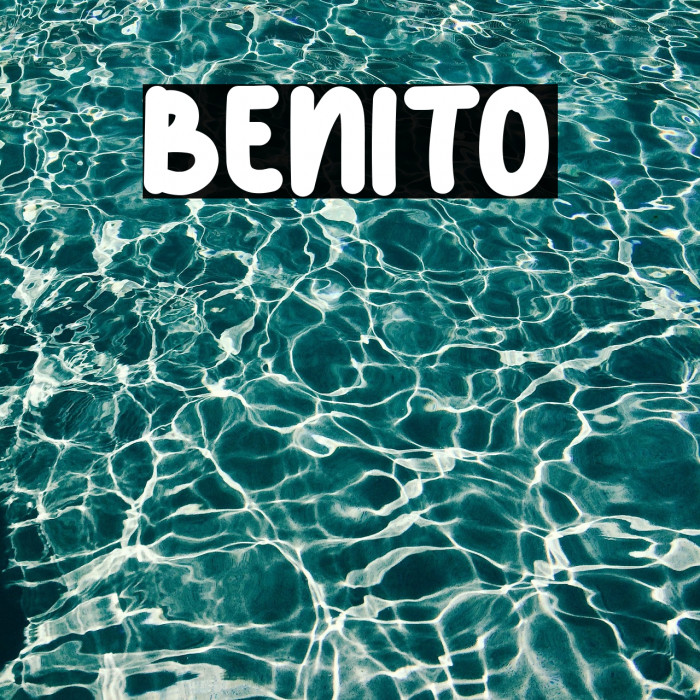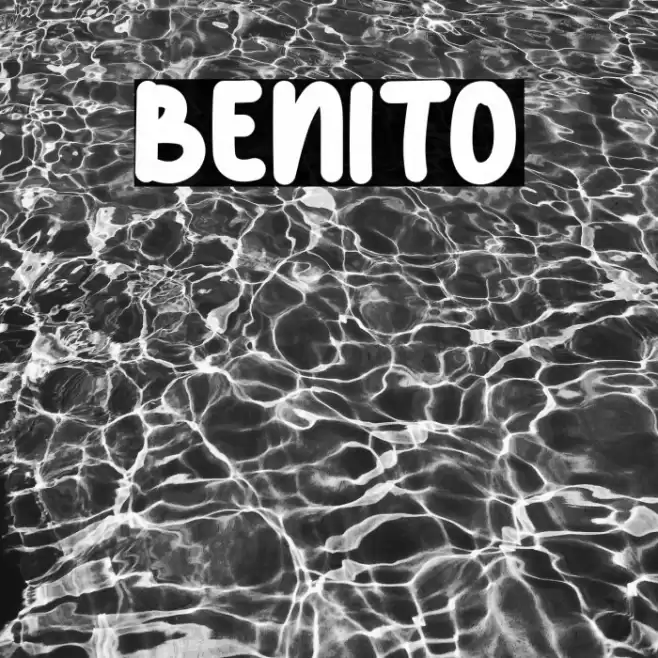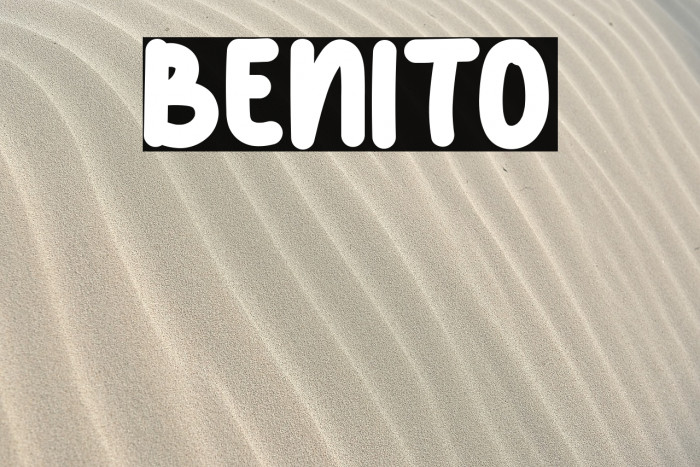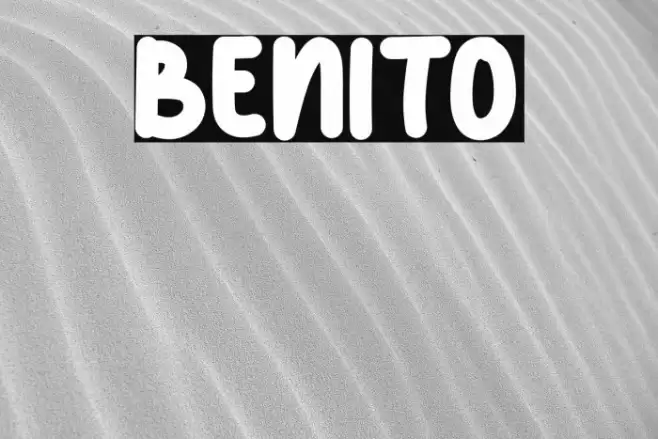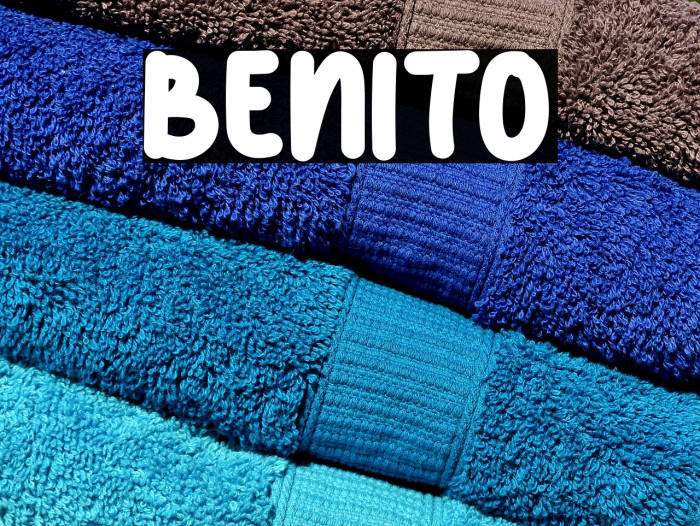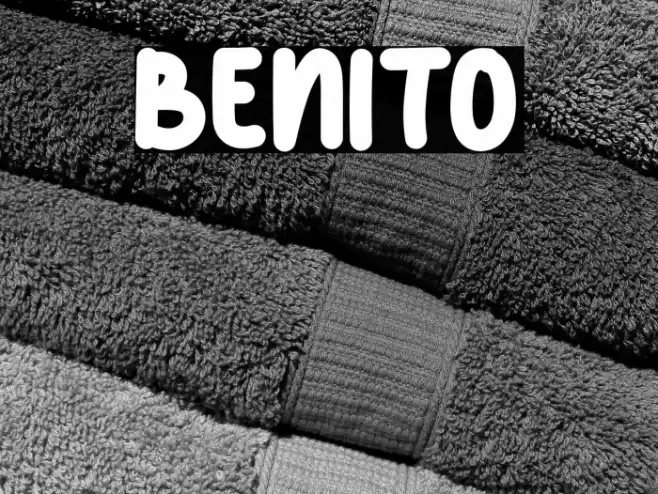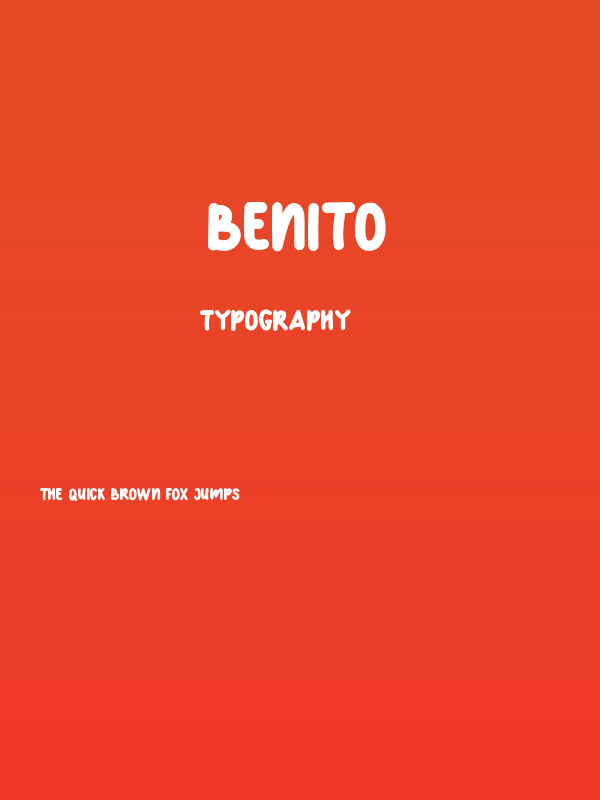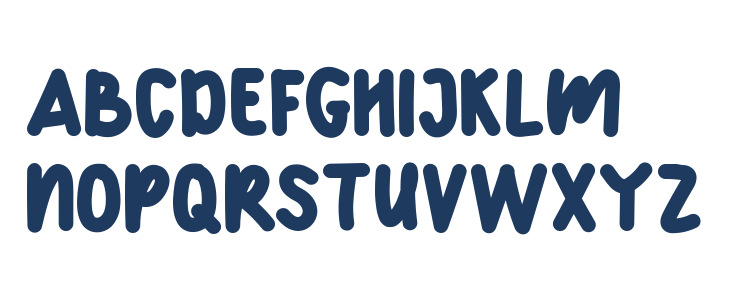
BENITO Font
BENITO Description
This font features a bold and playful style with rounded edges and a slightly irregular form, giving it a hand-drawn appearance. The uppercase letters are prominent and full-bodied, while the lowercase letters maintain a consistent flow with a similar weight. Numbers are clear and legible, matching the overall boldness of the alphabet. Special characters are included, maintaining the same playful and robust style. This font is ideal for projects that require a friendly and approachable look, such as children's books, casual branding, or playful advertising. Its bold nature ensures it stands out, making it suitable for headlines and attention-grabbing text.
| Overall Style | Playful, Casual |
| Proposed Projects | Ideal for children's books, casual branding, playful advertising, and headlines. |